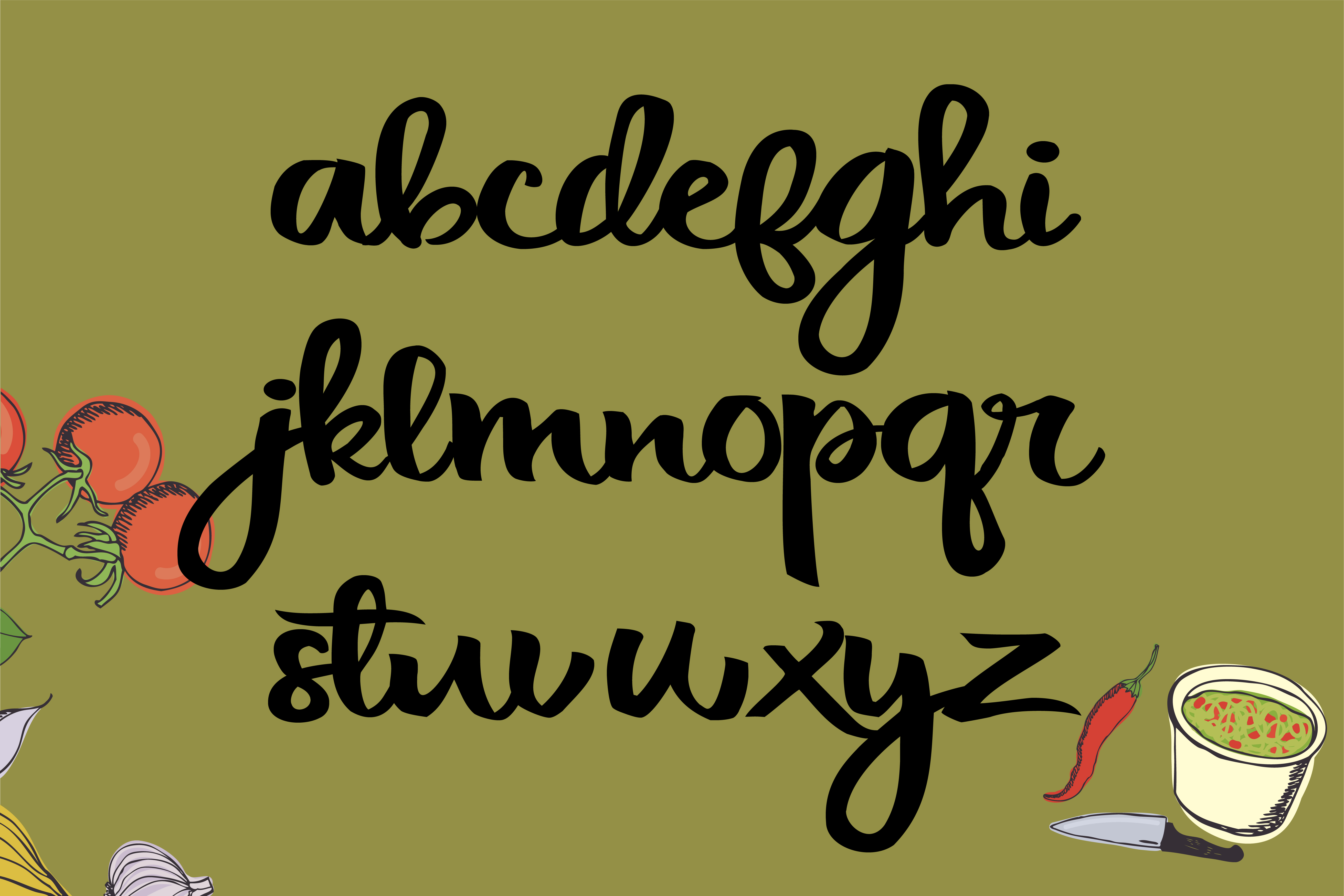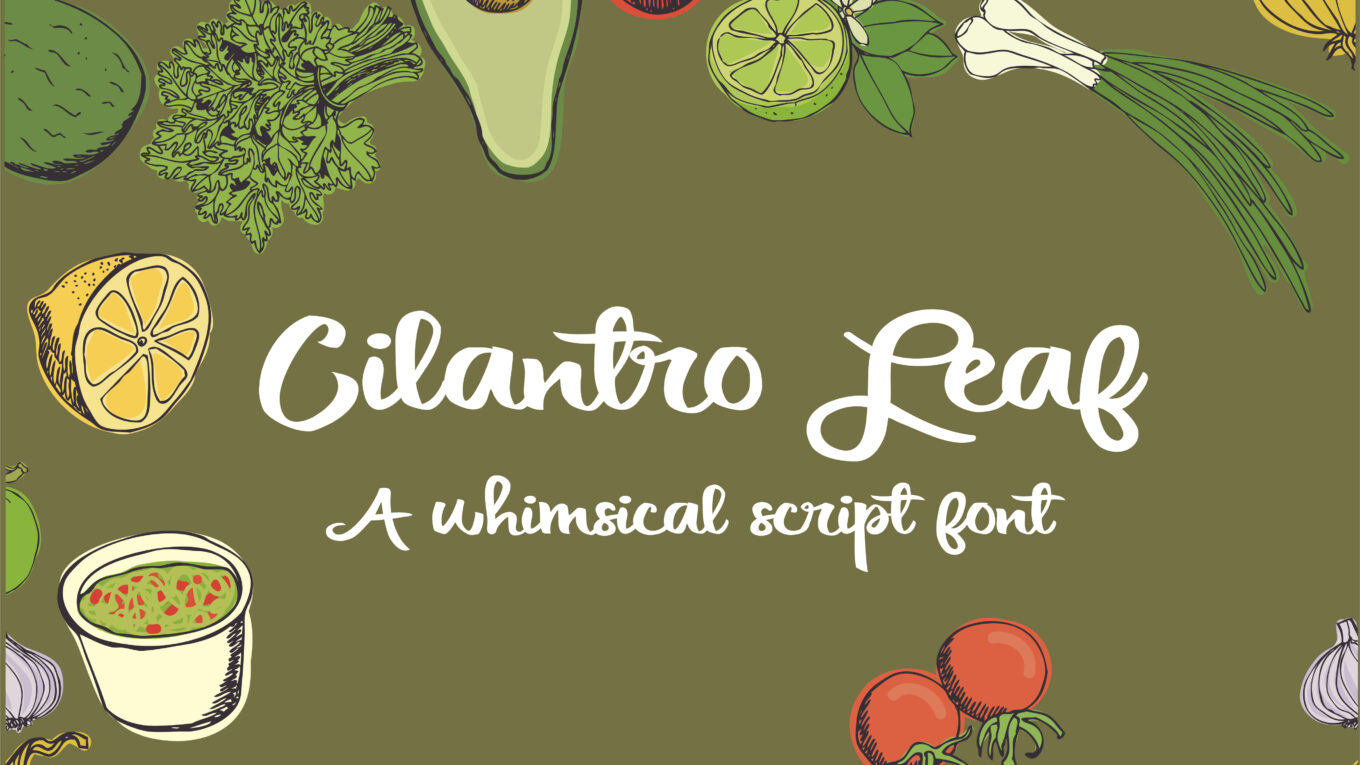
Cilantro Leaf Font: Add a Fresh and Zesty Touch to Your Designs
Are you tired of using the same old fonts in your designs? Do you want to add a touch of whimsy and personality to your work? Look no further than the Cilantro Leaf font! This bold and playful script is perfect for designers and crafters who want to give their projects a fresh and zesty look.
What is Cilantro Leaf Font?
Cilantro Leaf is a whimsical and bold script font that is sure to turn heads. With its quirky personality and handwritten feel, this font is perfect for adding a touch of personality to any design. Whether you’re working on a logo, a poster, or a social media graphic, Cilantro Leaf is sure to make your project stand out.
Characteristics of Cilantro Leaf Font
So, what makes Cilantro Leaf font so special? Here are just a few of its key characteristics:
- Whimsical and playful: Cilantro Leaf has a fun and carefree vibe that’s perfect for designs that need a little extra personality.
- Bold and eye-catching: With its bold lines and playful flourishes, Cilantro Leaf is sure to grab attention.
- Handwritten feel: This font has a warm and personal feel that’s perfect for designs that need a human touch.
- Versatile: Cilantro Leaf can be used for a wide range of designs, from logos and posters to social media graphics and more.
Uses for Cilantro Leaf Font
So, what can you use Cilantro Leaf font for? The possibilities are endless! Here are a few ideas to get you started:
- Logos and branding: Cilantro Leaf is perfect for creating unique and eye-catching logos that will help your brand stand out.
- Posters and flyers: Add a touch of whimsy to your posters and flyers with Cilantro Leaf’s playful and bold script.
- Social media graphics: Use Cilantro Leaf to create eye-catching social media graphics that will help your posts stand out.
- Invitations and cards: Add a personal touch to your invitations and cards with Cilantro Leaf’s handwritten feel.
Tips for Using Cilantro Leaf Font
Here are a few tips for getting the most out of Cilantro Leaf font:
- Use it sparingly: While Cilantro Leaf is a bold and eye-catching font, it can be overwhelming if used too much. Use it sparingly to add a touch of personality to your design.
- Pair it with a neutral font: Pair Cilantro Leaf with a neutral font to create a balanced and harmonious design.
- Experiment with colors: Cilantro Leaf looks great in a variety of colors, so don’t be afraid to experiment and find the perfect hue for your design.
In conclusion, Cilantro Leaf font is a unique and versatile font that is perfect for designers and crafters who want to add a touch of personality to their work. With its whimsical and bold script, handwritten feel, and wide range of uses, Cilantro Leaf is sure to become a favorite in your design toolkit. So why not give it a try and see how it can add a fresh and zesty touch to your designs?
- What type of font is Cilantro Leaf? Cilantro Leaf is a script font with a handwritten feel.